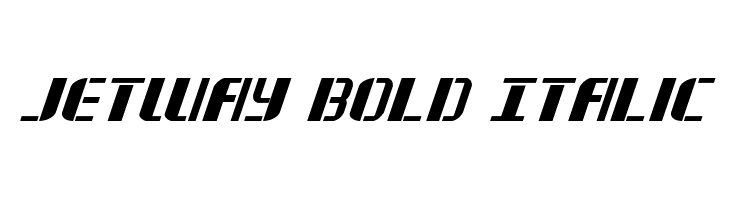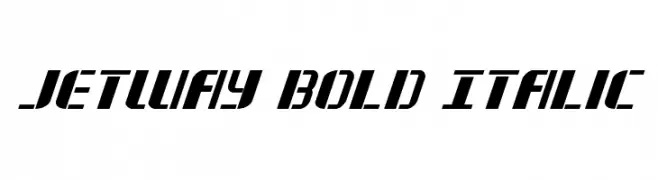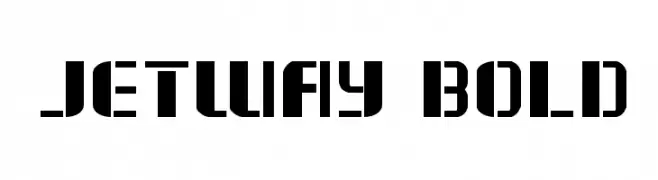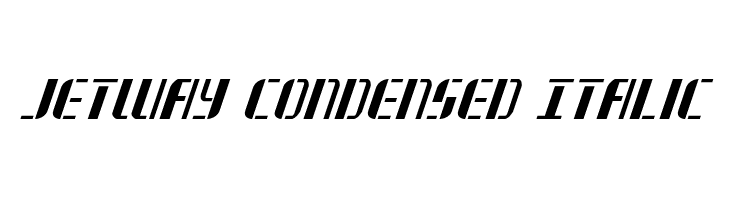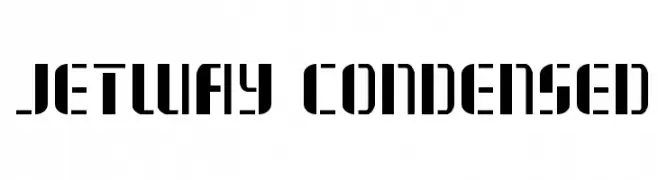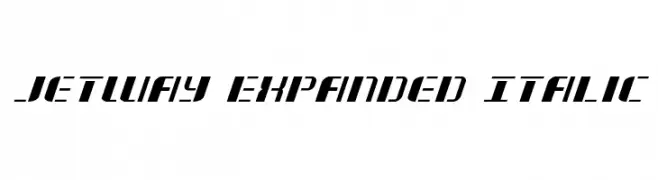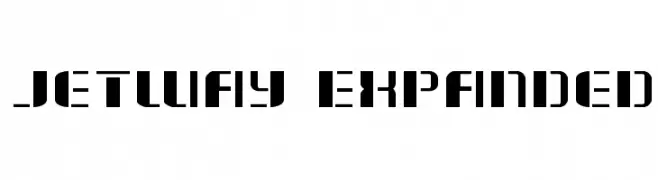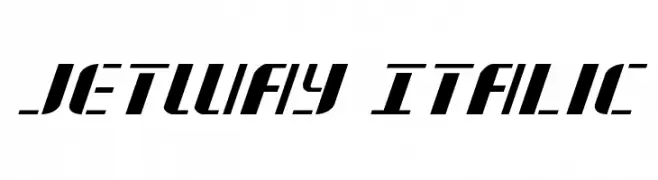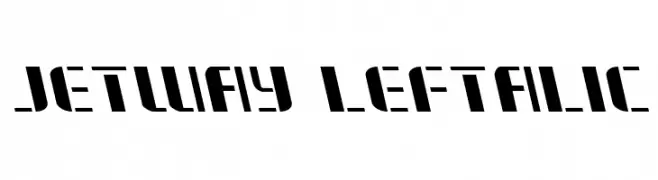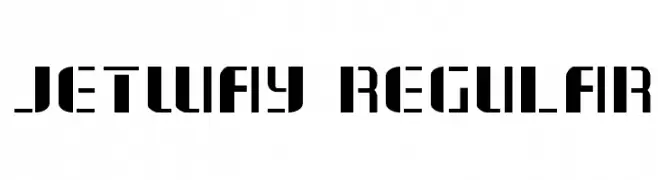
• Jetway Bold
A bold, geometric stencil font with a modern, industrial aesthetic.
• Jetway Bold Italic
A bold, italic font with sharp angles and a dynamic, modern style.
• Jetway Condensed
A bold, geometric stencil font with a modern, industrial style.
• Jetway Condensed Italic
A bold, condensed italic font with a modern, dynamic style.
• Jetway Expanded
A bold, geometric font with a modern, industrial stencil style.
• Jetway Expanded Italic
A bold, expanded, and italicized font with a modern and dynamic style.
• Jetway Italic
A bold, italicized font with a futuristic and dynamic style, featuring sharp angles and cut-out sections.
• Jetway Leftalic
A bold, stencil-like font with a leftward slant and modern appeal.
• Jetway Regular
A bold, geometric font with a modern, industrial stencil-like design.